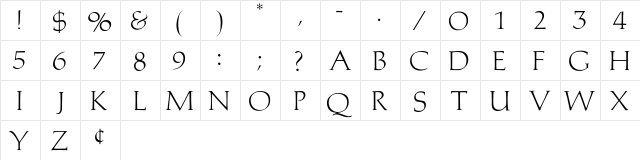
Medici Regular Font Preview
Medici Regular
Design Context for Medici Typeface
Medici takes a measured approach to typography — its balanced proportions and neutral character make it a reliable workhorse for both digital and print work.
Pro Tip: Use Medici in both headline and body roles to test its range before committing to a single application.